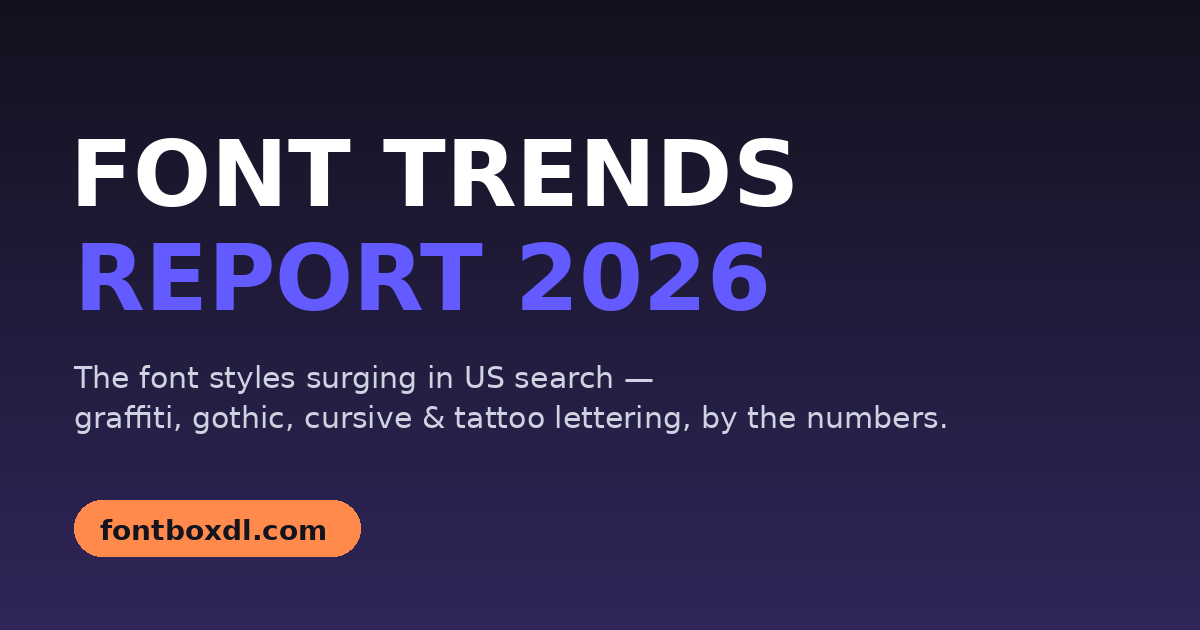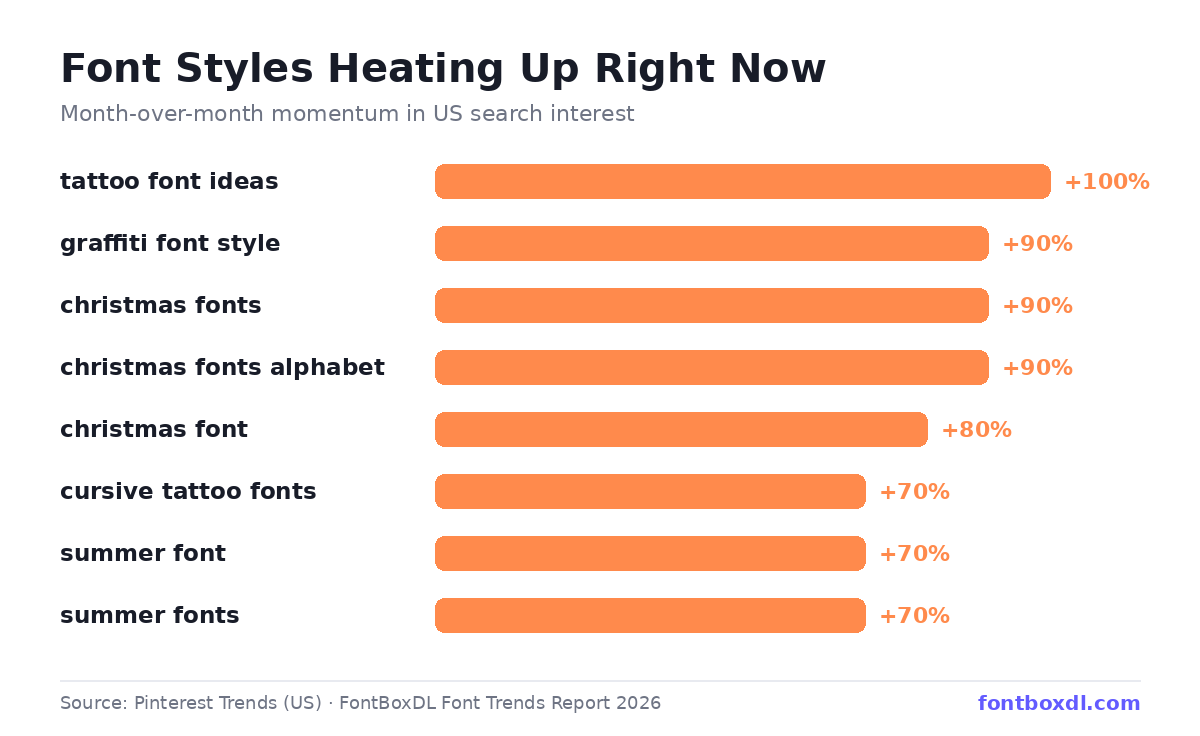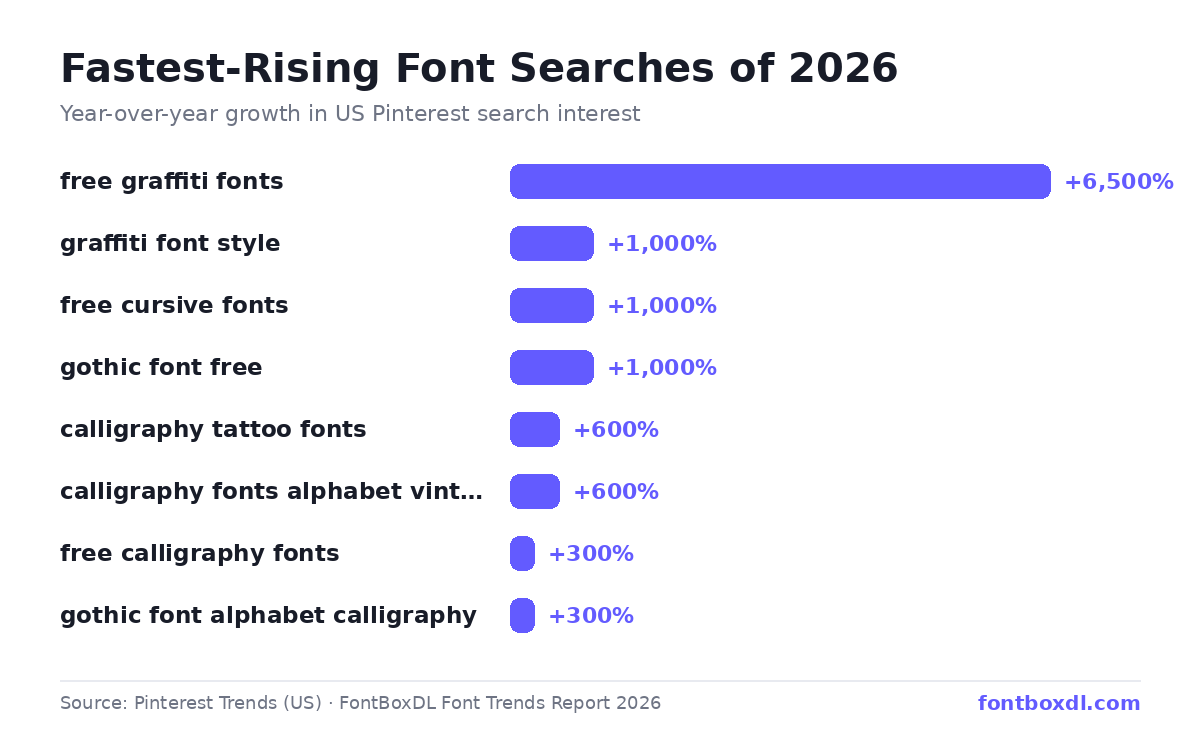
Every week we pull US search-trend data to decide which fonts to feature — and over the past few months one thing kept jumping out: people aren't just searching for "fonts" anymore. They're searching for very specific styles, and a handful of those styles are exploding.
So we did the obvious thing and collected it properly. This report looks at year-over-year and month-over-month momentum for 89 font-related search terms in the United States, cross-referenced against the 105,000+ fonts in our own catalog. No fluff — just where attention is actually moving in 2026, and what that means if you make things with fonts.
Key findings (2026)
- "Free graffiti fonts" is up roughly 6,500% year-over-year — by far the single fastest-growing font search we tracked.
- Gothic, cursive and graffiti styles are all up 1,000%+ YoY. Edgy and ornate is winning; clean-and-minimal is flat.
- Tattoo lettering is the breakout use-case: "tattoo font ideas" grew ~100% month-over-month and ~300% year-over-year.
- Christmas fonts started climbing in June (+90% MoM) — seasonal demand now shows up months early.
- The deepest part of our 105k-font catalog — 54,000+ script & handwriting fonts — lines up neatly with the surging cursive/calligraphy demand.
The fastest-rising font searches of 2026
Here's the headline chart. These are the eight font searches with the largest year-over-year growth in US search interest:
A few things stand out. First, graffiti is in a league of its own. "Free graffiti fonts" didn't just grow — it grew about 6,500% year-over-year, the kind of number you usually only see when something goes from near-zero to mainstream. "Graffiti font style" backs it up at roughly +1,000%. If you'd told us a year ago that street-art lettering would be the breakout font category of 2026, we'd have been skeptical. The data isn't.
Second, ornate and historical styles are having a moment. "Gothic font free" and "free cursive fonts" each climbed about 1,000% YoY, and calligraphy terms — including the very specific "calligraphy tattoo fonts" — landed around +600%. The throughline is hand-craft: blackletter, flourished scripts, and brush calligraphy all reward the eye in a way that a clean geometric sans simply doesn't.
What's heating up right now
Year-over-year tells you the big shifts. Month-over-month tells you what's accelerating this minute — useful if you're planning content, a product drop, or a craft project:
Two stories here. The obvious one is seasonality showing up early. "Christmas fonts" and "Christmas fonts alphabet" are already up ~90% month-over-month — and we measured this in June. Crafters, Etsy sellers and Cricut users plan their holiday inventory far ahead of the calendar, and the search data makes that planning visible months in advance. "Summer fonts" riding +70% MoM is the same pattern, just for the season we're actually in.
The less obvious story is tattoo lettering. "Tattoo font ideas" topped the month-over-month chart at +100%, and across the year tattoo-related terms are up ~300%. This isn't a font fad so much as a behavior: people are using font sites to mock up tattoo lettering before they ever walk into a studio. Fine-line script and bold blackletter are doing the heavy lifting — see our tattoo fonts collection.
Demand vs. supply: what people want vs. what exists
Because we run a catalog, we can do something most trend write-ups can't: compare what people are searching for against what's actually available. Here's the style breakdown of the 105,174 active fonts in our library:
| Style family | Fonts available | Demand signal (2026) |
|---|---|---|
| Script & handwriting | 54,791 | Surging — cursive & calligraphy +600–1,000% YoY |
| Decorative (incl. graffiti, gothic) | 22,362 | Hottest — graffiti +6,500% YoY |
| Dingbats & symbols | 10,294 | Steady |
| Display | 5,660 | Steady |
| Sans-serif | 4,503 | Flat |
| Serif | 2,509 | Flat |
| Slab-serif | 2,386 | Flat |
| Wedding | 1,351 | Seasonal |
The takeaway: demand and supply are best matched in script & handwriting, which is both our deepest category (nearly 55,000 fonts) and one of the fastest-growing in search. The interesting gap is graffiti and gothic — demand is rising faster than almost anything, but those styles live inside the broader "decorative" bucket and are comparatively rare as dedicated, well-made families. If you're a type designer wondering what to draw next, that's your signal.
What this means for you
- If you sell crafts or printables: stock graffiti, gothic and brush-script designs now, and build your holiday font assets in summer — the search demand is already there.
- If you design logos or brands: the market is tilting ornate. A flourished script or a confident blackletter reads as "premium" in 2026 in a way a default sans doesn't.